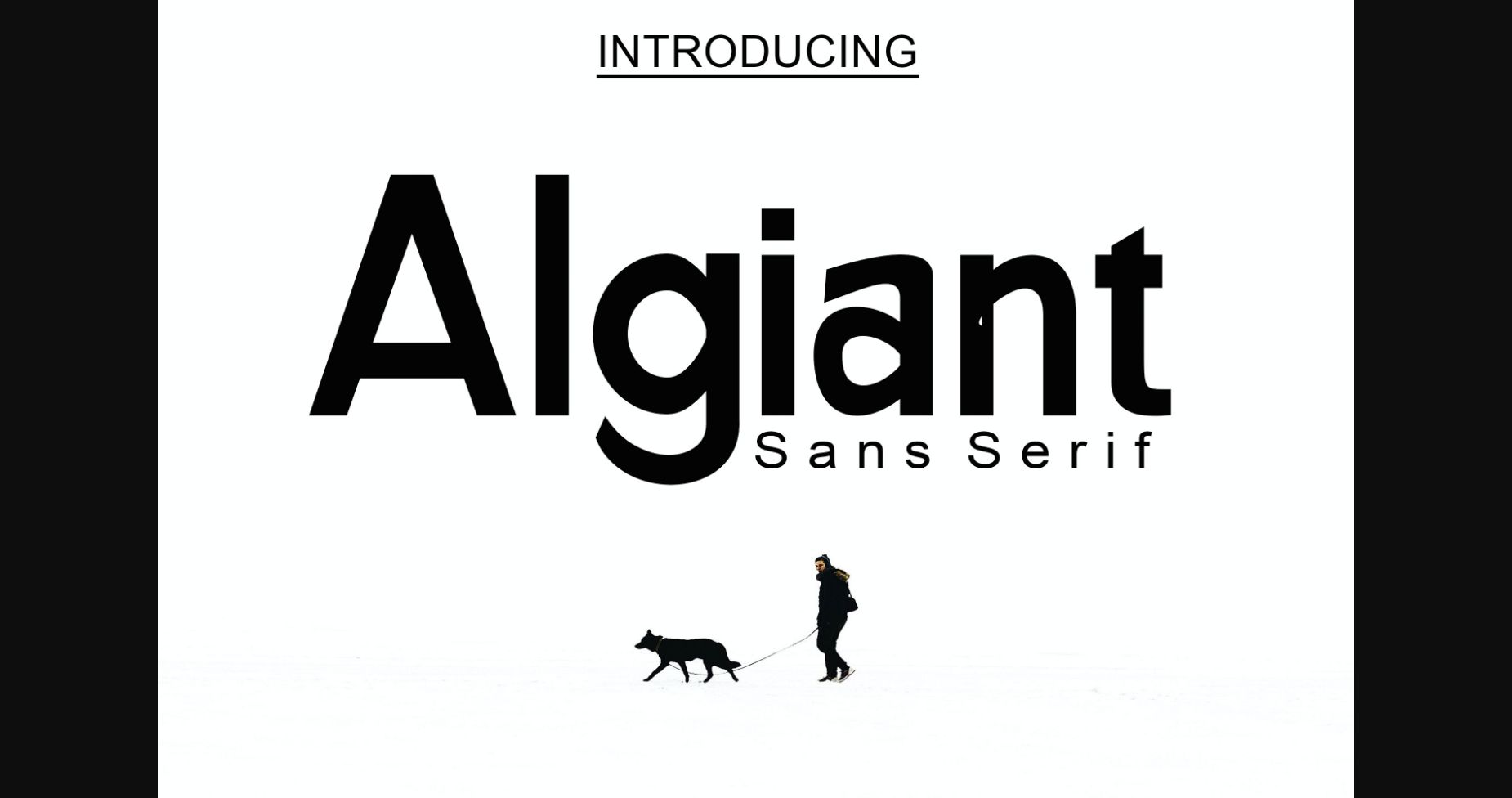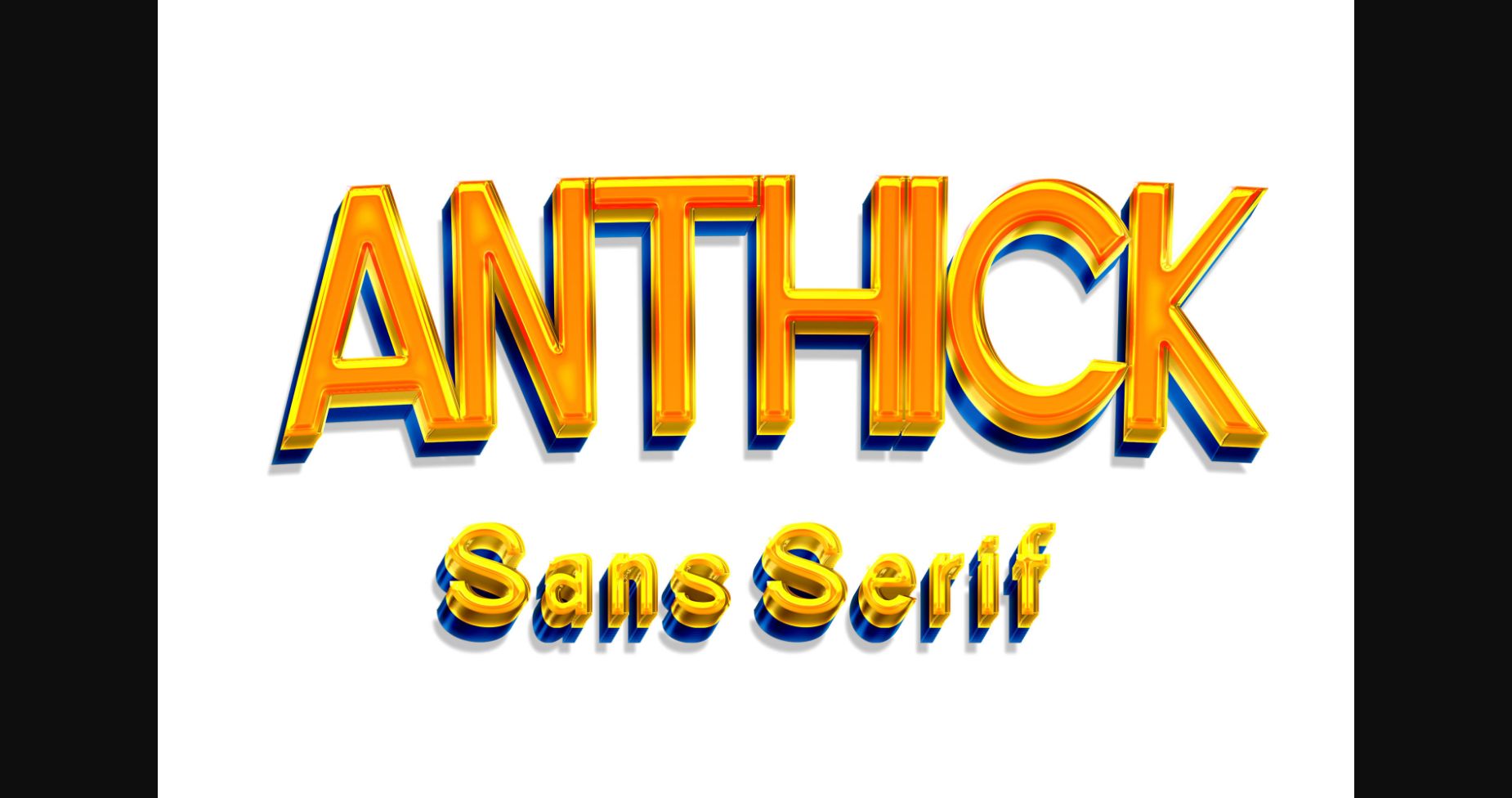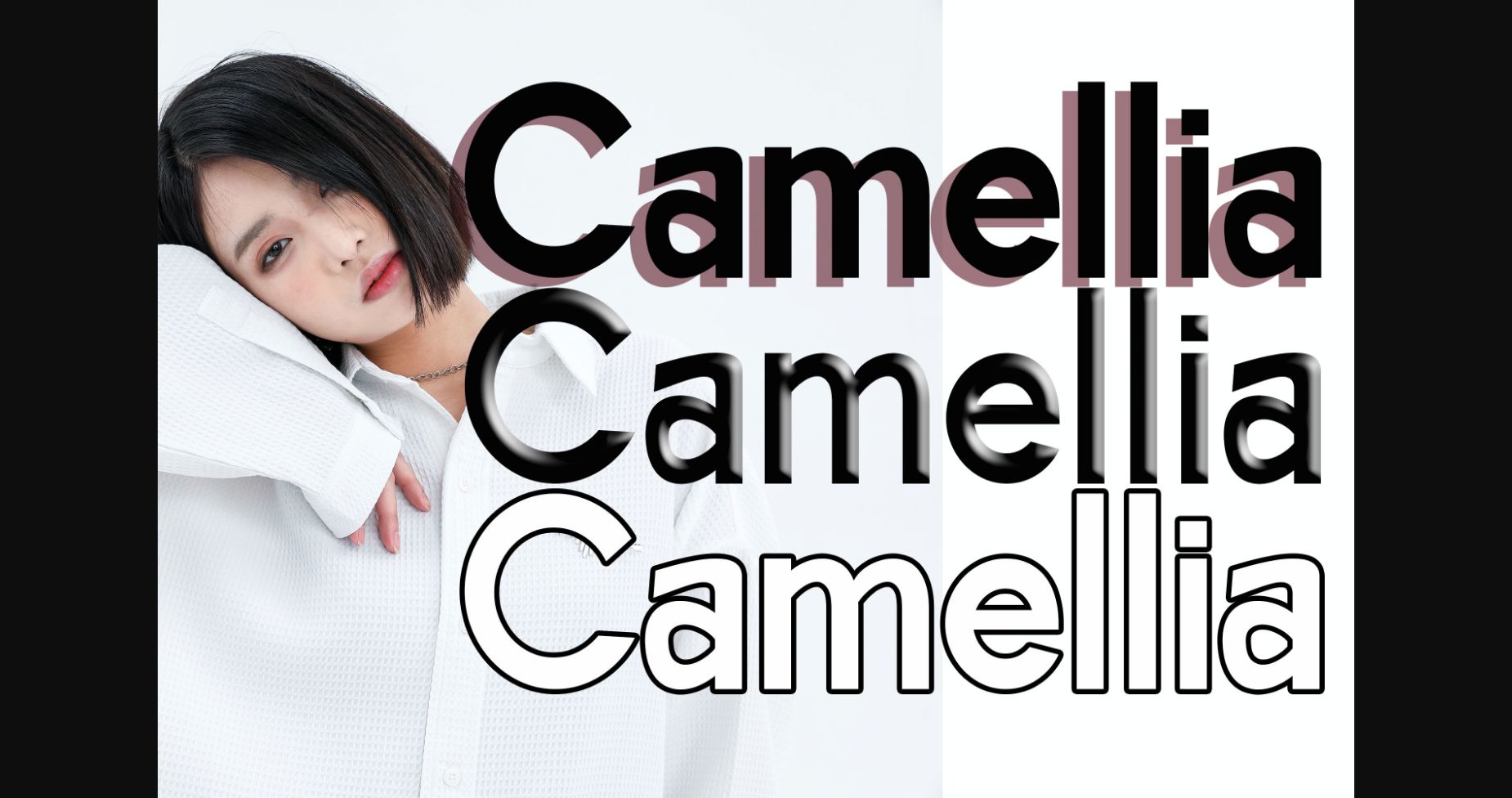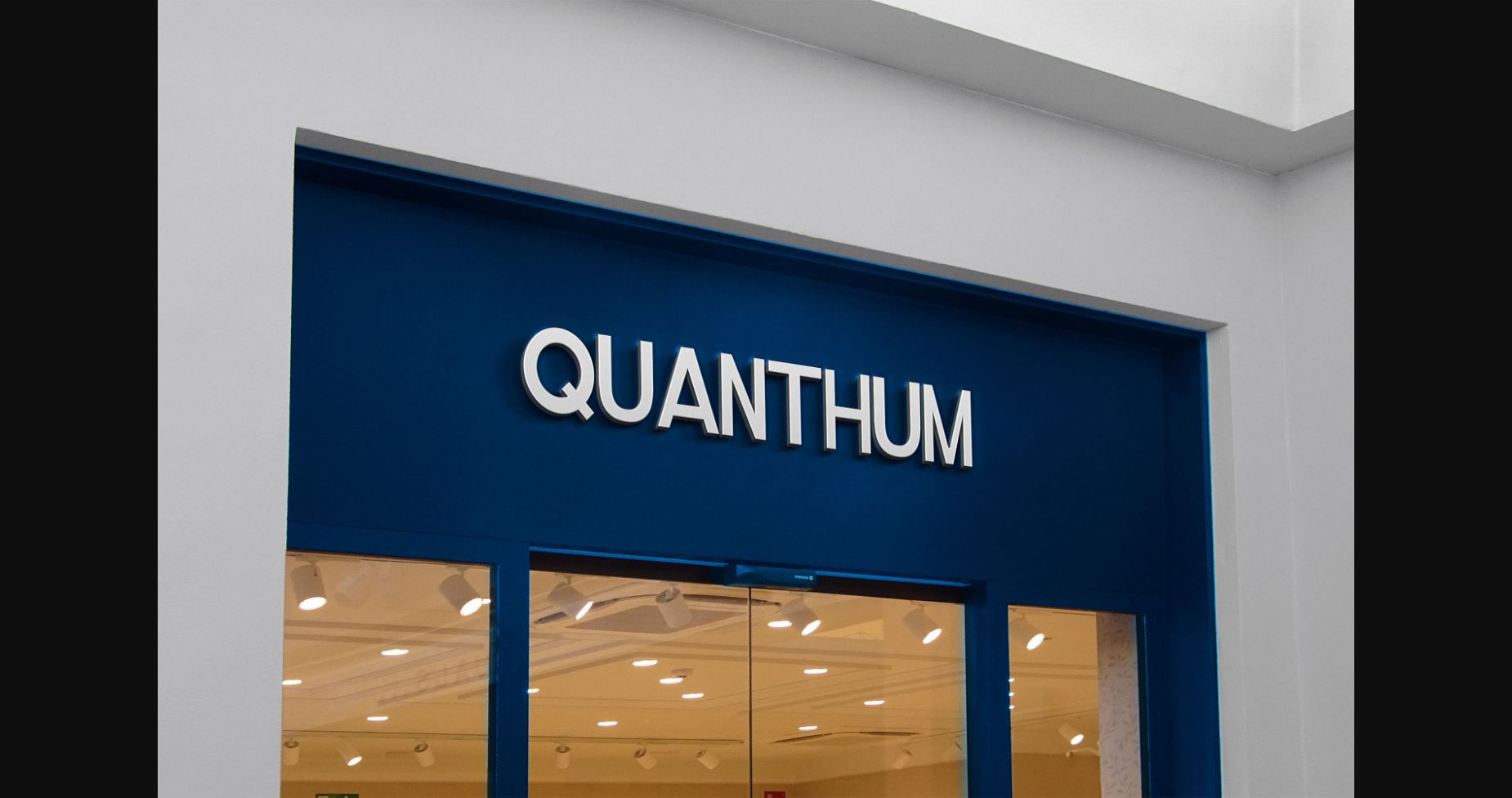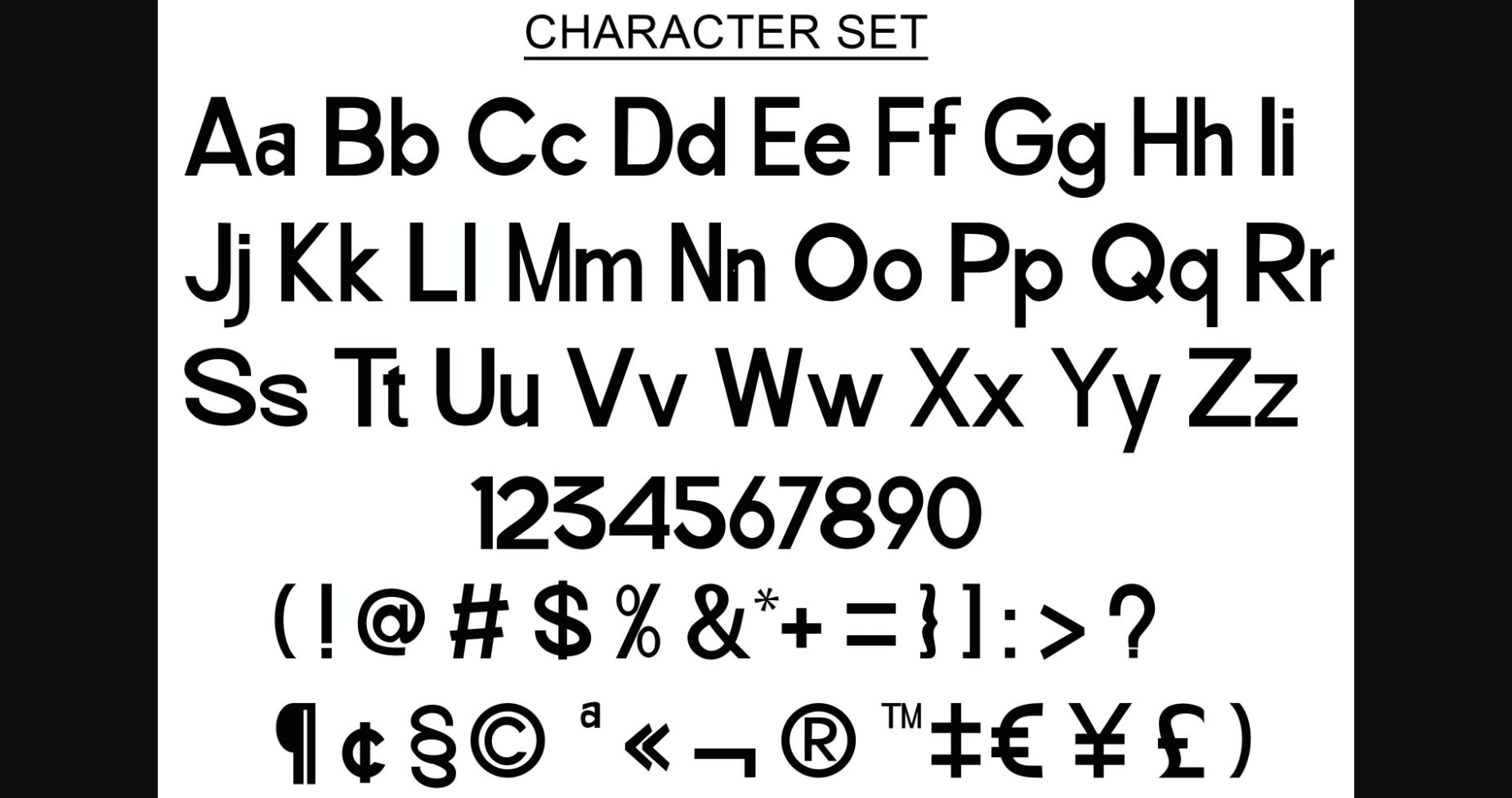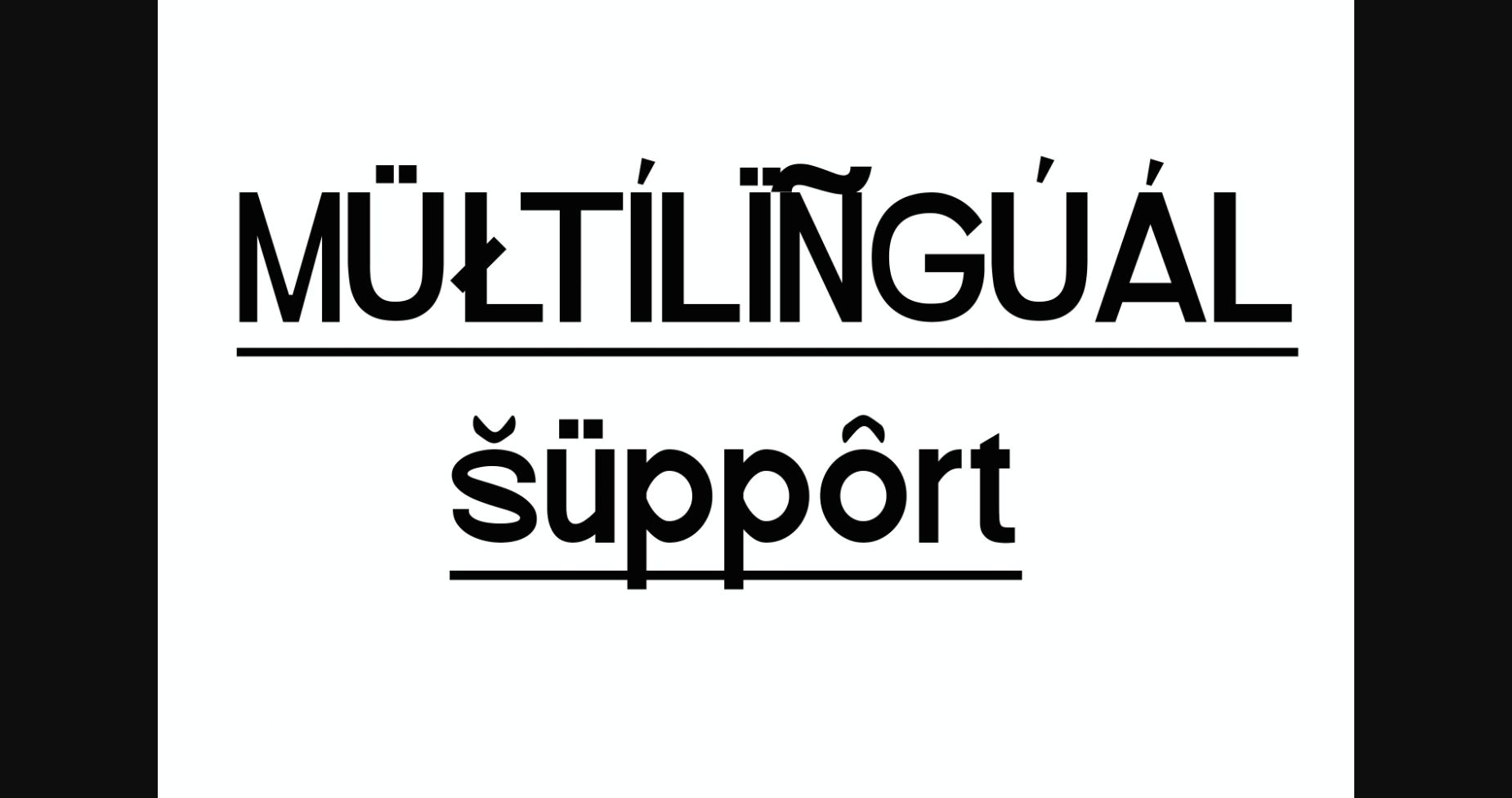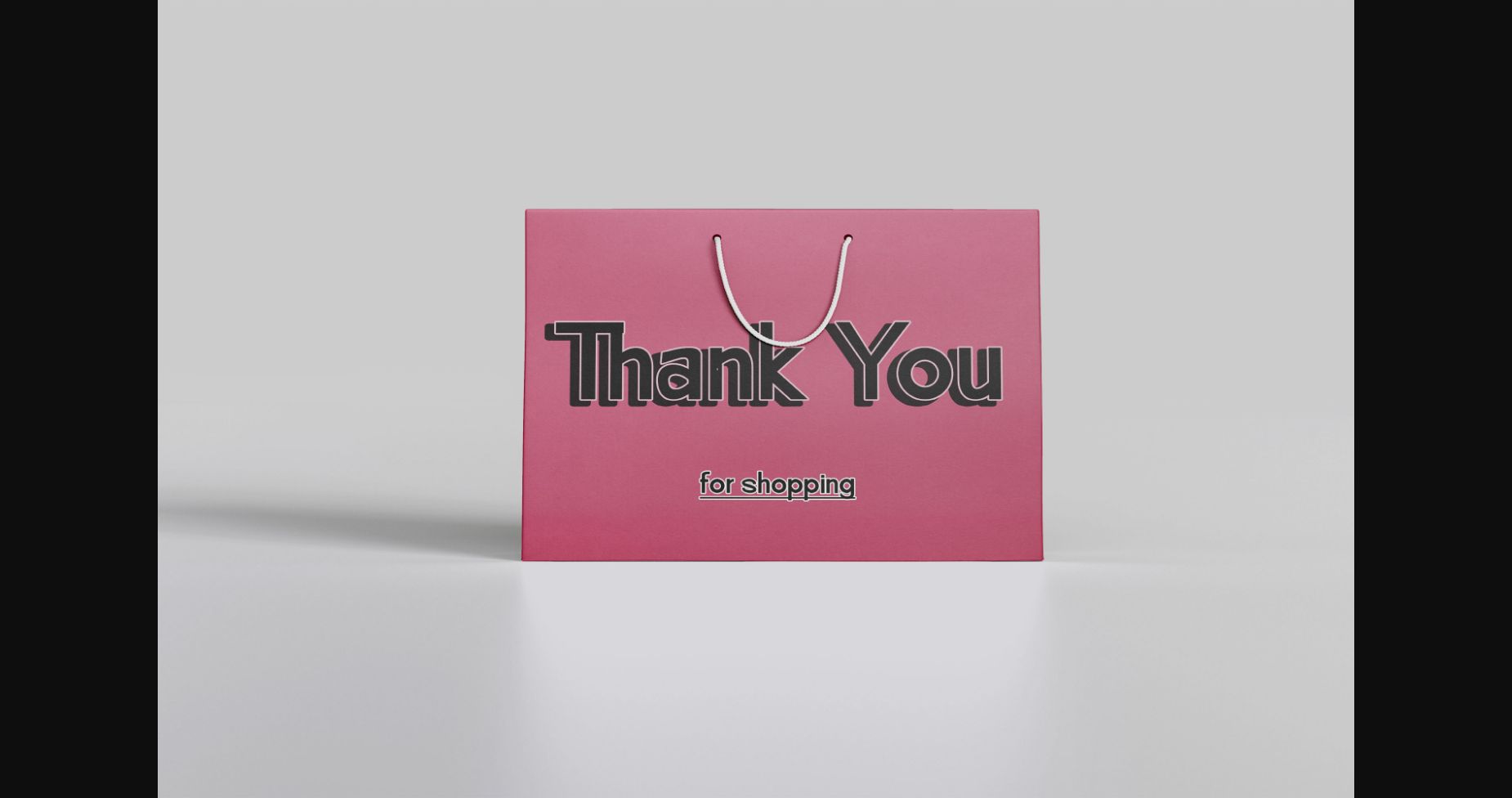
HomeSans Serif FontsAlgiant Font Sans Serif Fonts Algiant Font FacebookXPinterestWhatsApp 1 of 9 ... Algiant Font Poster 2... Algiant Font Poster 3... Algiant Font Poster 4... Algiant Font Poster 5... Algiant Font Poster 6... Algiant Font Poster 7... Algiant Font Poster 8... Algiant Font Poster 9... About Algiant Font Aligant is a bold and assertive serif font. No matter the topic, this font will be an incredible asset to your fonts’ library, as it has the potential to elevate any creation. DOWNLOAD NOW People also explored Freshness Font Stephan Font Malika Baby Font PN Octopus Socks Font Malistiona Font Globetrot Font Canada Font Brambles Font Heritage Font 460 0 TagsAlgiantAlgiant Font Previous articleMonde De Mayor FontNext articleDesignart Font LEAVE A REPLY Cancel reply Comment: Please enter your comment! Name:* Please enter your name here Email:* You have entered an incorrect email address! Please enter your email address here Website: Save my name, email, and website in this browser for the next time I comment. Personal Use Free BD Geminis Personal Use Free Read more about this font Mike Ferrari 16017 Personal Use Free Read more about this font First Be Lucky Personal Use Free Read more about this font Heart Memory Personal Use Free Read more about this font BLOG How to Install and Use Fonts on Windows, macOS, and Web Projects How to Install and Use Fonts on Windows, macOS, and Web Projects Fonts are a crucial part of design and branding. Whether you’re designing a... Free Fonts Risk: Why Free Fonts Can Be Dangerous for Designers Top 7 Google Fonts Alternatives for Faster and Privacy-Friendly Web Design (2025) Modern Sans-Serif Fonts That Brands Love in 2025